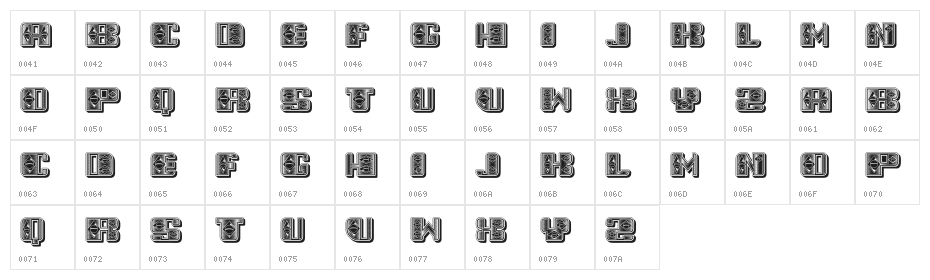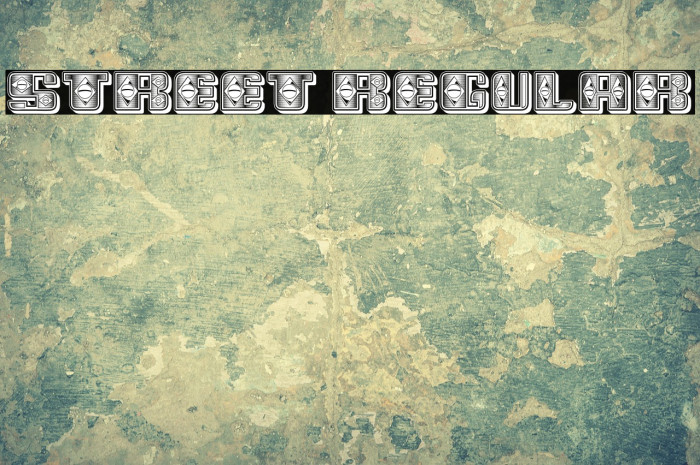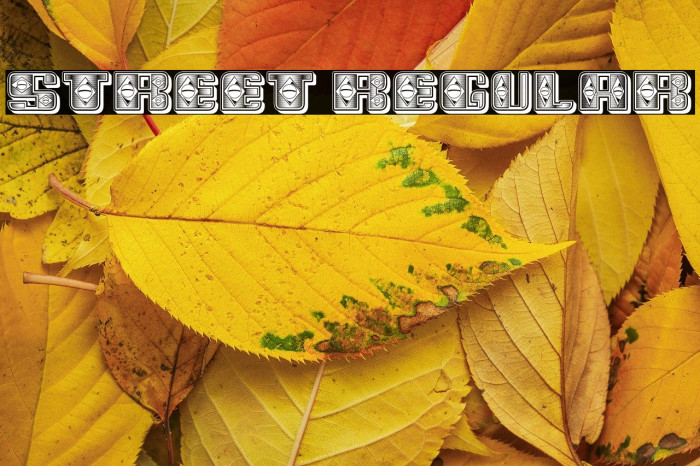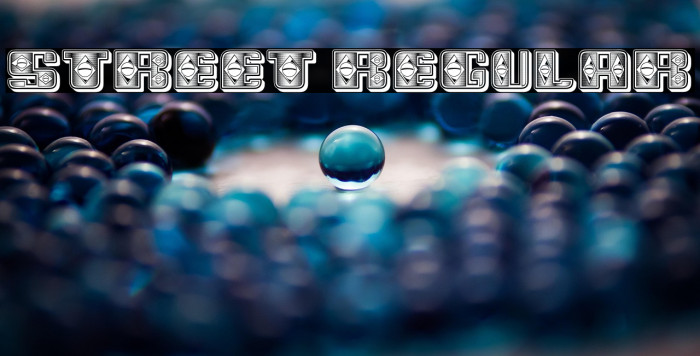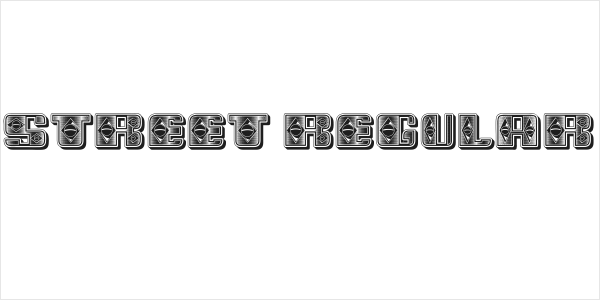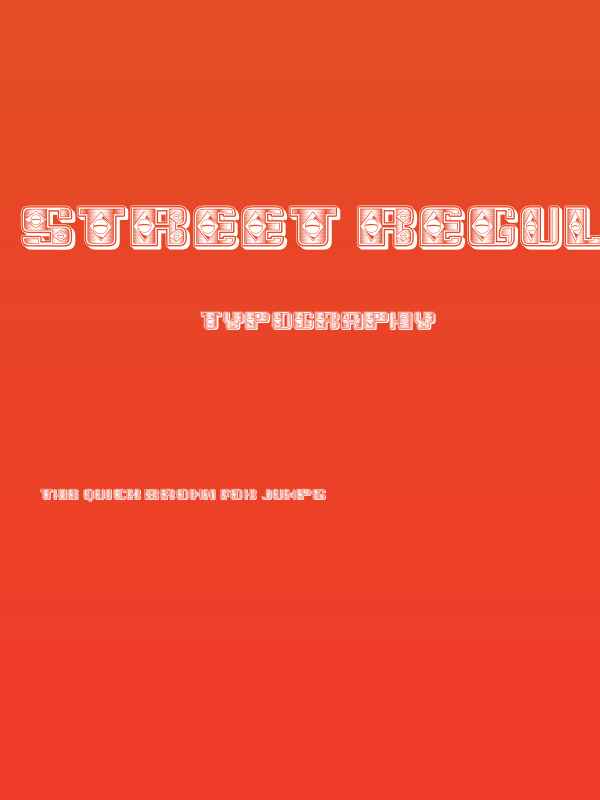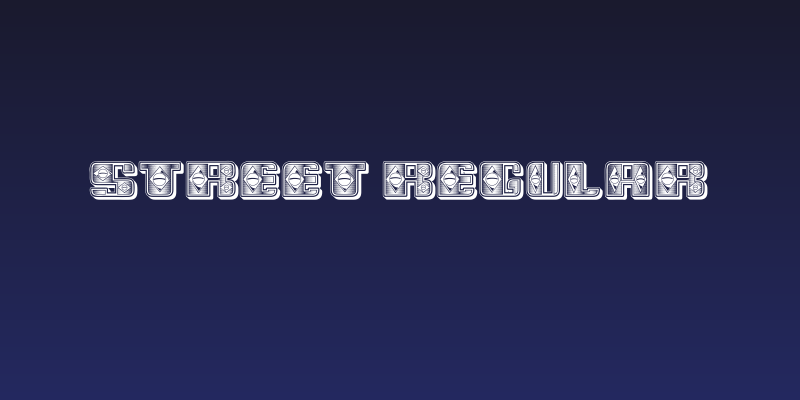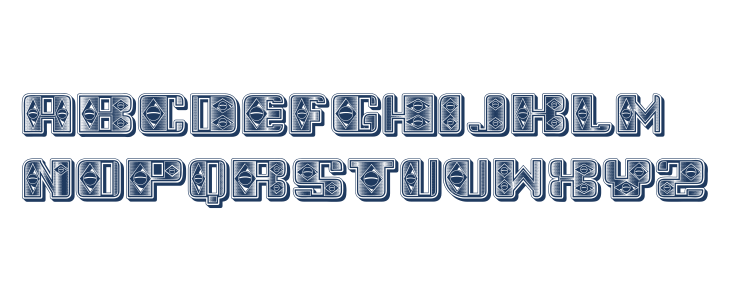
Street Regular Font
Street Regular Description
This font features a bold, decorative style with intricate patterns within each character. The letters are outlined with a thick border, giving them a strong presence. The internal design includes geometric shapes and lines, adding a unique and artistic flair. This font is highly stylized, making it ideal for eye-catching designs. The uppercase letters are uniform in height, while the overall look is reminiscent of street art or graffiti, providing a modern and edgy vibe.
| Proposed Projects | Ideal for posters, album covers, streetwear branding, and urban-themed designs. |